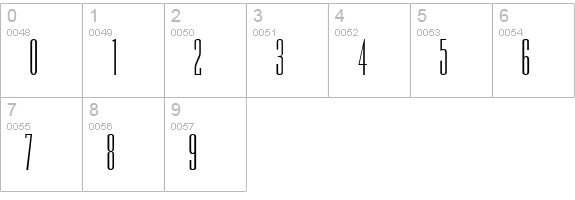
Slim Jim Normal Font Details
Slim Jim Normal is the standard, neutral variant in the Slim typeface family \xE2\x80\x94 well suited to general body text, paragraphs, and standard typographic work.
Slim Jim Normal is a sleek and modern font that exudes confidence and sophistication. With its clean lines and balanced letterforms, this typeface is perfect for both professional and creative projects. Whether you're designing a logo, creating a website, or crafting a stylish invitation, Slim Jim Normal will elevate your design with its contemporary aesthetic. What sets Slim Jim Normal apart is its versatility. This font is suitable for a wide range of applications, from headlines and titles to body text and captions. Its readability ensures that your message will be conveyed clearly and effectively. The carefully crafted letterforms create a harmonious rhythm, making reading a pleasure for the eyes. But the best part? Slim Jim Normal is entirely free! Yes, you read that right. This stunning font is freely available to download at FontsMarket.com, where you can access a vast collection of high-quality fonts for your design needs. Say goodbye to expensive font licenses and hello to creative freedom. With Slim Jim Normal, you can easily bring a touch of elegance and professionalism to your projects without breaking the bank. Don't miss out on this incredible opportunity to enhance your designs with a font that embodies style and sophistication. Download Slim Jim Normal today and let your creativity soar.